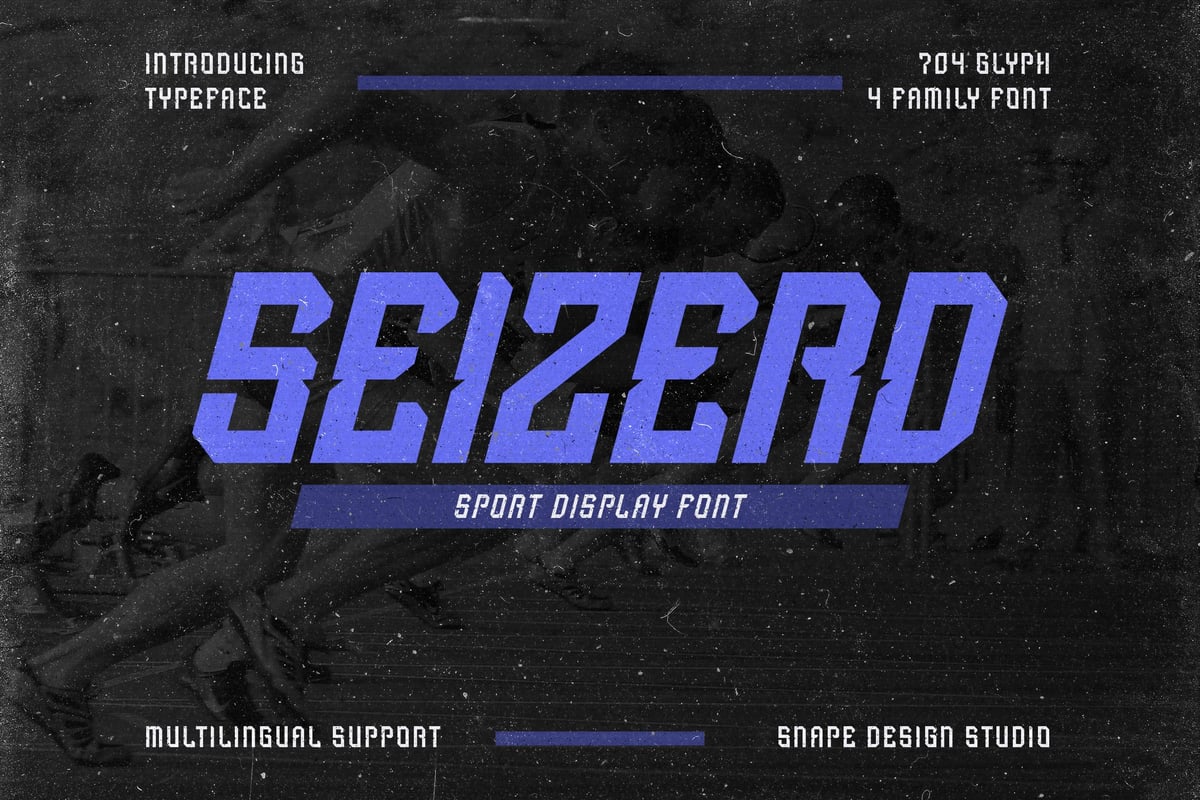
Seizerd - Sport Font
Command attention with Seizerd, the powerful sport font designed to make your athletic projects dominate the competition. This bold typeface delivers vibrant energy to sport-inspired designs, perfect for creating impactful visuals that demand notice. Seizerd brings a commanding presence to any project requiring strength and dynamism. Ideal applications include: Sport team branding and jersey designs League and tournament graphics Movie titles and documentary projects Film and game logos Eye-catc...